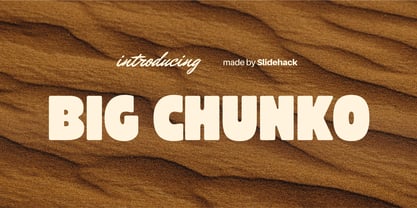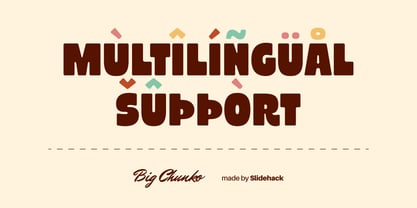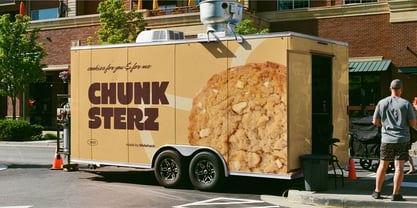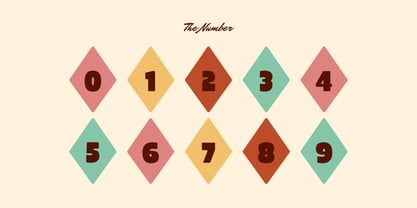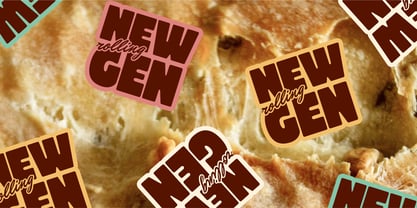
Big Chunko
La famille de polices Big Chunko a été conçue par Panca Ahmadi Hasan et publiée par Slidehack. Big Chunko contient 1 styles.
Big Chunko is a bold and eye-catching display font with a fun retro vibe, designed to bring a strong personality to any project. Its chunky letterforms add impact and charm, making it perfect for posters, headlines, branding, and social media graphics. Whether you’re creating modern typography, playful designs, or stylish layouts, this font ensures your text stands out with a unique and memorable touch.